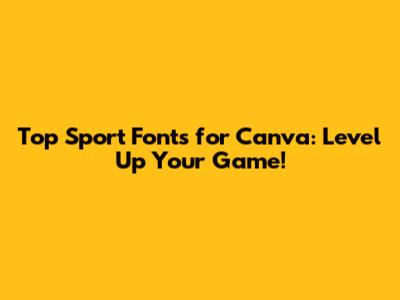
- Readability is Key: No matter how cool a font looks, make sure it's easy to read, especially in designs like jerseys or scoreboards.
- Consider the Sport: Match the font to the sport. A sleek, modern font might be great for basketball, while a rugged font might be better for baseball.
- Use Hierarchy: Use different font weights and sizes to create a visual hierarchy. This helps guide the viewer's eye and makes the design more engaging.
- Pair Fonts Wisely: Don't be afraid to combine different fonts, but make sure they complement each other. A good rule of thumb is to pair a sans-serif font with a serif font.
- Color Matters: Choose colors that complement the font and the overall design. High contrast can improve readability.
Hey guys! Are you looking to create some eye-catching sports-themed designs in Canva? Finding the perfect font can make all the difference. A killer font can transform your project from drab to dynamite. So, let's dive into some of the best sports fonts available in Canva that will help you level up your design game!
Why Choose the Right Font for Sports Designs?
Before we jump into specific font recommendations, let’s talk about why selecting the right font is crucial. When it comes to sports designs, the font you choose significantly impacts the overall feel and message. Think about it – a sleek, modern font might be perfect for a basketball poster, while a rugged, vintage font might better suit a baseball-themed design.
The right font can evoke feelings of energy, excitement, and competition. It can also convey a sense of tradition, history, and teamwork. Imagine designing a flyer for a local marathon using a whimsical, script-like font. It just wouldn't work, would it? You need something that screams speed, endurance, and athleticism! Moreover, the font needs to be easily readable, especially in designs like jerseys or scoreboards. If people can't quickly understand the text, your message is lost. When selecting a sport font, consider your target audience and the specific sport you are representing. The font should resonate with the sport's culture and the emotions it evokes. Whether you're working on team logos, event posters, or social media graphics, choosing a font that aligns with the sport's vibe is essential for creating impactful designs. So, always keep in mind that a well-chosen font is not just about aesthetics; it's about communication and connection. It's about capturing the spirit of the game and conveying it to your audience effectively.
Top Sport Fonts in Canva
Alright, let's get to the fun part! Here are some top sport fonts you can find and use in Canva to make your designs pop. These fonts are versatile and can be used for various sports-related projects.
1. Bebas Neue
Bebas Neue is a classic sans-serif font that is widely popular for its clean, modern, and impactful look. It's tall, condensed letters make it perfect for headlines, posters, and anything that needs to grab attention. Its simplicity and legibility make it a fantastic choice for sports designs that need to convey power and clarity. Think about using Bebas Neue for basketball tournament posters, football team announcements, or even on sports jerseys. Its clean lines ensure it remains readable even when applied to smaller sizes or complex backgrounds. It's a go-to font for many designers because it strikes the right balance between being attention-grabbing and highly functional. In Canva, you can easily find Bebas Neue in the font library and experiment with different sizes, colors, and effects to tailor it to your specific design needs. Whether you're creating a bold statement or adding a touch of modernity, Bebas Neue is a reliable option that will elevate your sports-themed projects. Its versatility also allows it to pair well with other fonts, giving you the flexibility to create unique and dynamic designs. So, if you're looking for a font that combines simplicity with impact, Bebas Neue is definitely worth considering.
2. Montserrat
Montserrat is another fantastic sans-serif font that offers a clean and modern aesthetic. What makes Montserrat stand out is its versatility; it works well in both headlines and body text. It's highly legible and provides a contemporary feel to any design. For sports-related projects, Montserrat can be used in various ways, from creating team logos and website banners to designing social media posts and event flyers. Its simplicity ensures that it doesn't distract from the main message, while its clean lines add a touch of sophistication. Moreover, Montserrat comes in various weights, allowing you to create visual hierarchy and add emphasis where needed. You can use the bolder weights for headlines to grab attention and the lighter weights for body text to ensure readability. In Canva, Montserrat is readily available, making it easy to incorporate into your designs. Experiment with different color combinations and font sizes to see how Montserrat can enhance your sports-themed projects. Whether you're designing for a professional sports team or a local community event, Montserrat offers a reliable and stylish option that will help you create impactful and visually appealing designs. Its modern and approachable look makes it a great choice for conveying messages of teamwork, athleticism, and sportsmanship.
3. Oswald
Oswald is a classic sans-serif font that is perfect for sports designs due to its bold and condensed nature. Designed specifically for digital screens, Oswald maintains excellent readability even at smaller sizes, making it ideal for jerseys, scoreboards, and mobile applications. Its narrow letterforms allow you to pack more text into a limited space without sacrificing clarity. In sports-related projects, Oswald is often used for headlines, subheadings, and captions. Its strong and assertive appearance conveys a sense of energy and excitement, making it suitable for various sports, from basketball and football to racing and extreme sports. Oswald's versatility extends to both print and digital media, ensuring that your designs look consistent across different platforms. In Canva, you can easily access Oswald and customize it to fit your specific design needs. Experiment with different weights and styles to create visual contrast and emphasis. Pair it with other fonts to create dynamic and engaging layouts. Whether you're designing posters, banners, or social media graphics, Oswald provides a reliable and impactful solution that will help you capture the attention of your audience. Its modern yet timeless appeal makes it a go-to choice for designers looking to create a strong and lasting impression in the sports world. Therefore, if you are searching for a font that combines boldness, readability, and versatility, Oswald is an excellent option to consider.
4. ChunkFive
ChunkFive is a bold slab-serif font that exudes confidence and strength, making it an excellent choice for sports-themed designs. Its thick, blocky letterforms command attention and convey a sense of power, making it perfect for headlines, logos, and promotional materials. If you're looking to make a statement, ChunkFive is the font to use. It's particularly well-suited for sports like football, weightlifting, and boxing, where a sense of raw energy and dominance is desired. ChunkFive's unique character makes it stand out from other fonts, ensuring that your designs grab the viewer's attention. In Canva, ChunkFive can be easily incorporated into your projects, allowing you to create visually striking designs that leave a lasting impression. Experiment with different colors and effects to enhance its impact further. While ChunkFive is primarily used for headlines and titles, it can also be used sparingly in body text to add emphasis and create visual interest. However, it's essential to use it judiciously, as its boldness can overwhelm smaller text blocks. When used correctly, ChunkFive can transform your sports designs into powerful and memorable pieces that resonate with your target audience. Its robust and assertive nature makes it a reliable choice for projects that require a font that can convey strength, determination, and unwavering spirit.
5. League Gothic
League Gothic is a revival of a classic sans-serif font that offers a vintage yet timeless appeal. Its tall, condensed letterforms and clean lines make it a versatile choice for various sports-related designs. If you're looking to add a touch of retro charm to your projects, League Gothic is an excellent option. Its narrow width allows you to fit more text into a limited space, making it ideal for posters, banners, and headlines. League Gothic is particularly well-suited for sports with a rich history and tradition, such as baseball, basketball, and vintage racing. Its classic look evokes a sense of nostalgia while maintaining a modern edge. In Canva, League Gothic can be easily accessed and customized to fit your specific design needs. Experiment with different colors, sizes, and spacing to create visually appealing layouts. While League Gothic is primarily used for headlines and subheadings, it can also be used in body text to add a unique flair to your designs. However, it's essential to ensure readability, especially in smaller text sizes. When used effectively, League Gothic can transform your sports-themed projects into captivating pieces that blend vintage aesthetics with contemporary design principles. Its enduring appeal makes it a reliable choice for designers looking to create designs that stand the test of time and resonate with audiences of all ages. Whether you're designing for a local sports team or a national event, League Gothic offers a touch of sophistication and character that will elevate your projects.
Tips for Using Sports Fonts Effectively
Okay, now that you know some great sports fonts, let’s talk about how to use them effectively. Here are some tips to keep in mind: